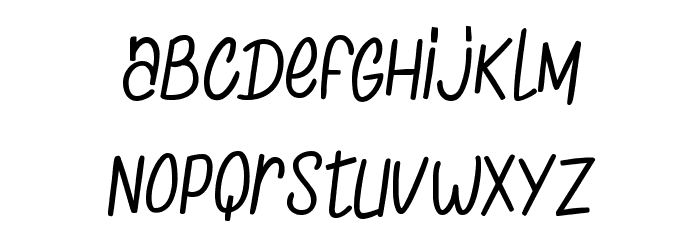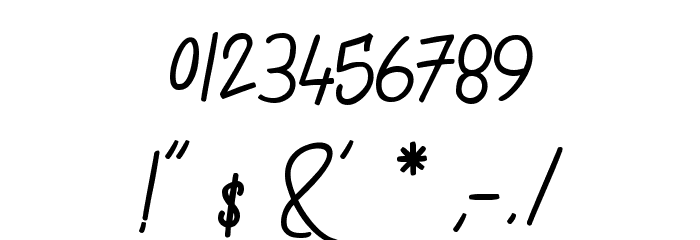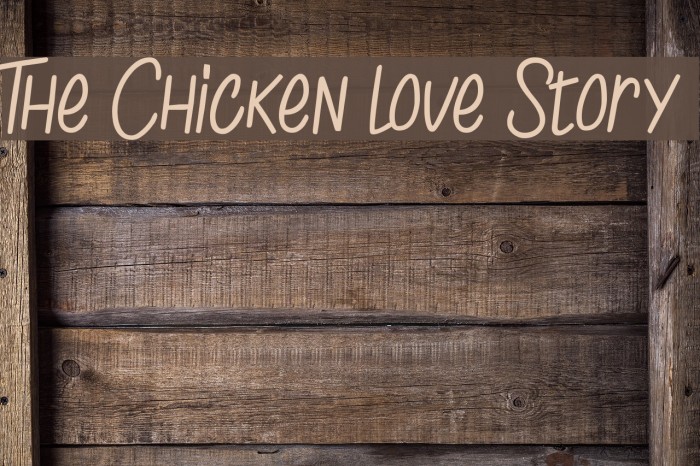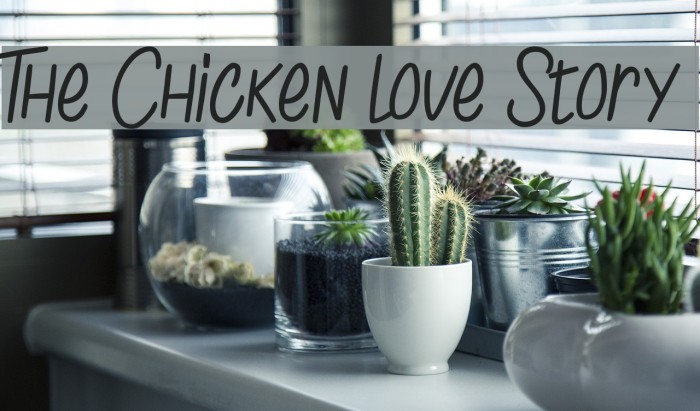
The Chicken love Story Font
This font features a playful and casual handwritten style, characterized by its smooth, flowing lines and slightly irregular shapes. The letters are slightly slanted, giving a sense of movement and dynamism. The uppercase and lowercase letters maintain a consistent style, with rounded edges and a friendly appearance. The numerals and special characters complement the alphabet with similar curves and a cohesive look. This font exudes a sense of warmth and approachability, making it ideal for projects that require a personal touch.
A playful, handwritten font with smooth, flowing lines and a casual style.
- Proposed Projects: Ideal for greeting cards, invitations, personal branding, and social media graphics.
- Overall Style: Casual
- Use Case: Logos, Invitations, Social Media